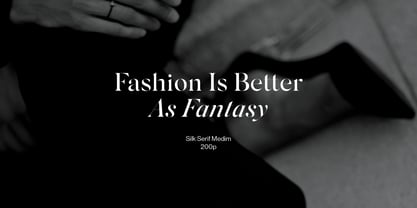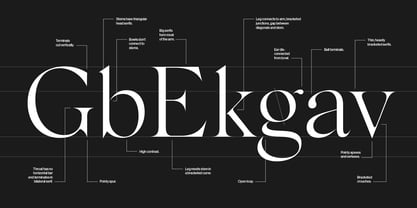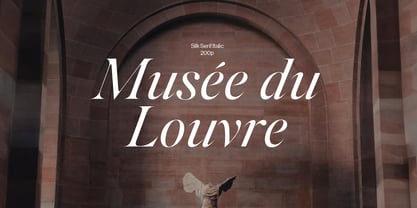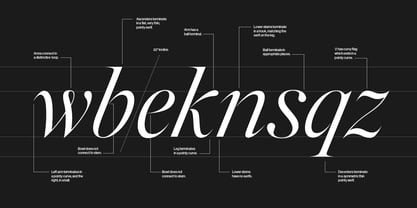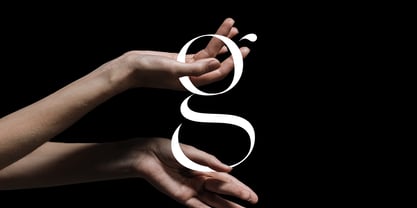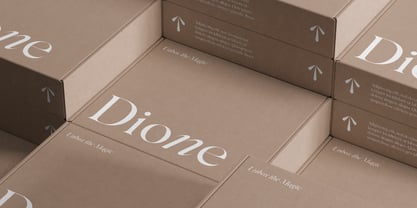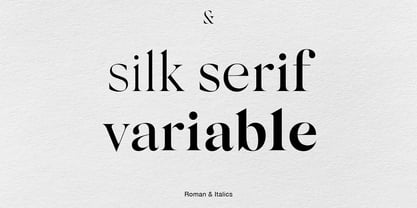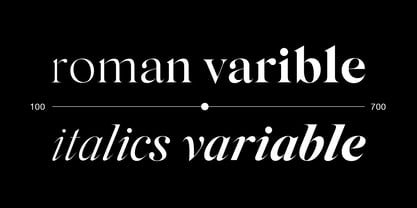
Silk Serif Variable
The Silk Serif Variable Font Family was designed by Rakel Tómasdóttir and published by SilkType. Silk Serif Variable contains 2 styles and family package options. More about this family
Silk Serif is a high-contrast typeface with thin, pointy, heavily bracketed serifs, and ball terminals in the appropriate places, as well as bracketed junctions in various letterforms. The main feature of the typeface is the disconnection between the bowls and the stems. However, the bowl is very close to the stem, creating the illusion of connection. Silk is delicate and legible, but above all, it is sophisticated. In 2025, Silk Serif was updated with refined forms, improved spacing, smoother italics, and the addition of standard ligatures and decorative shapes, further enhancing its versatility and elegance.
Now available as a variable font, placing every weight from Extra Light to Black on a single continuous axis, and expanded to include full Vietnamese language support, with the diacritics drawn as an integral part of the design.
About SilkType
SilkType is a Reykjavik-based type foundry founded by Rakel Tomas in 2017. Our debut font, Silk Serif, set the stage for a collection of captivating display serif typefaces. Inspired by fabrics’ role in fashion, each font is thoughtfully named after textiles, embodying the essence of graphic design materials. SilkType delivers distinctive typefaces that elevate graphic design projects with a touch of sophistication.